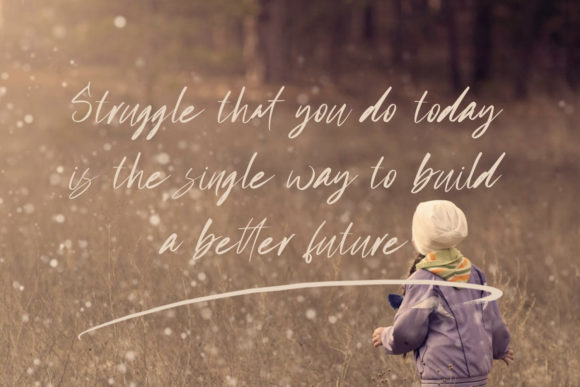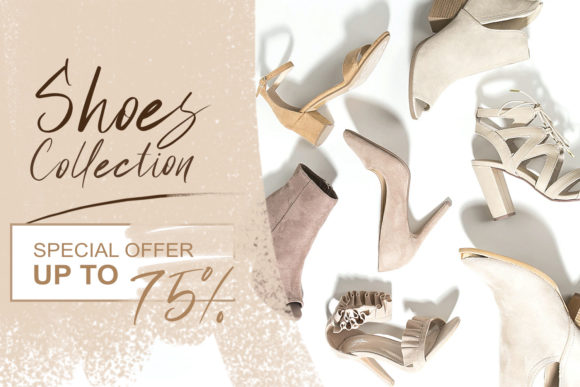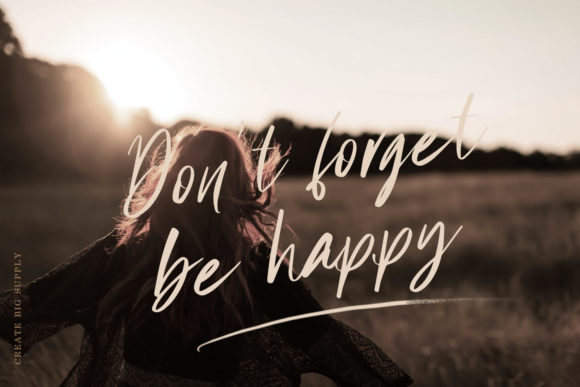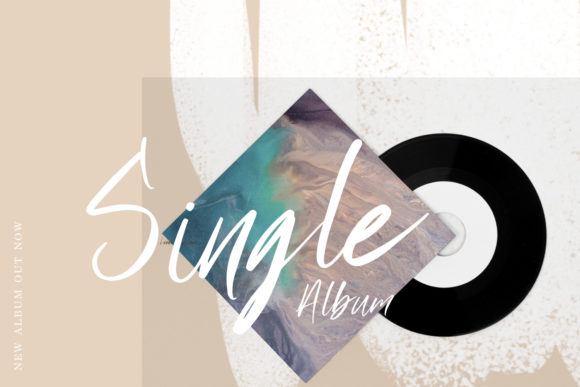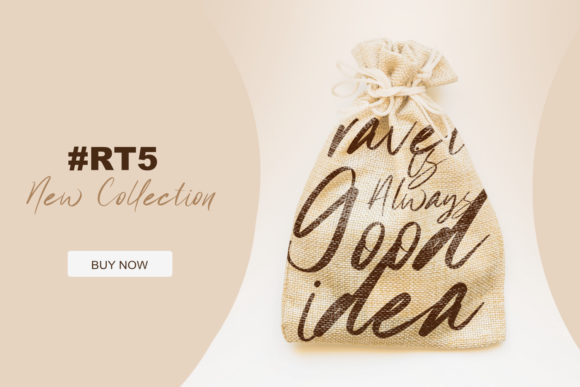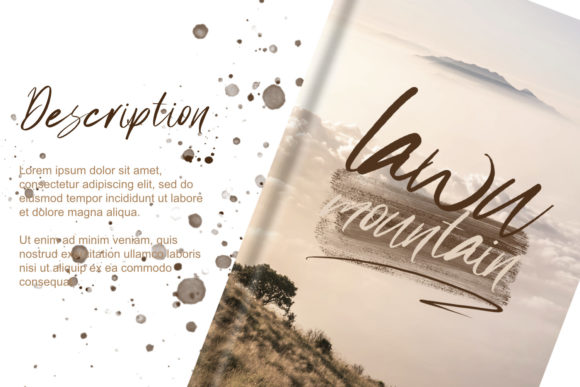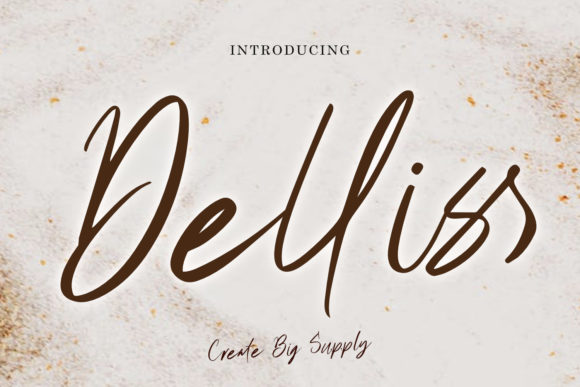
Delliss Font: Elevate Your Designs with Elegance and Sophistication
In the world of typography, a font can make or break the visual appeal of a design. For those seeking to add a touch of elegance and class to their creations, Delliss Font is an exceptional choice. This ravishing script font is specifically crafted to provide a beautiful and refreshing look to various designs, making it a must-have for designers and crafters alike.
The Essence of Delliss Font
Delliss Font is a meticulously designed script font that embodies sophistication and refinement. Its unique and flowing curves make it perfect for a wide range of design applications, from luxury branding and high-end advertising to elegant wedding invitations and stylish packaging. The font’s distinctive character is sure to capture the attention of your audience and leave a lasting impression.
Key Features of Delliss Font
- Elegant and Refined: Delliss Font boasts a sleek and polished appearance, making it ideal for designs that require a touch of sophistication.
- Beautifully Crafted: The font’s intricate details and flowing curves have been carefully crafted to provide a unique and refreshing look.
- Versatile: Delliss Font can be used for a wide range of design applications, including logos, branding, packaging, and more.
- Easy to Read: Despite its elegant and cursive nature, Delliss Font remains highly legible, making it perfect for both headings and body text.
Delliss Font is an excellent addition to any designer’s or crafter’s toolkit. Whether you’re working on a luxury brand, a wedding invitation, or a stylish packaging design, this font is sure to elevate your work to the next level. Its versatility and elegance make it an excellent choice for a wide range of projects, including:
- Logos and Branding: Create a lasting impression with a unique and elegant logo that reflects your brand’s personality.
- Wedding Invitations: Add a touch of sophistication and romance to your wedding invitations and stationery.
- Packaging Design: Elevate your product packaging with a stylish and eye-catching design that stands out on store shelves.
- Advertising: Create high-end advertisements that exude luxury and sophistication.
Tips for Using Delliss Font